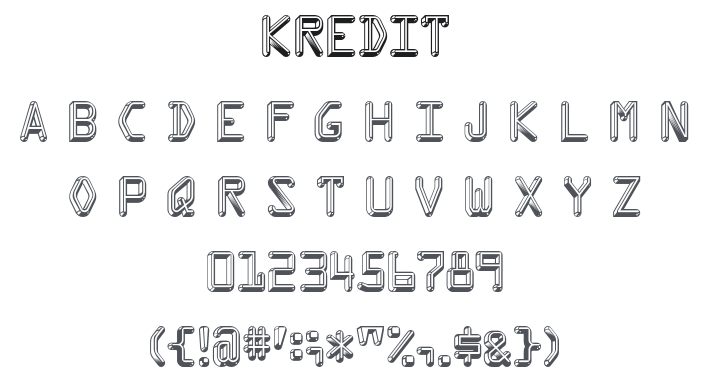
Kredit Font Family
About Kredit
Kredit is an OCR-A inspired credit card display typeface — its monospaced, machine-readable letterforms perfectly mimic the embossed numbers on a classic bank card, complete with a raised, dimensional quality. Four layerable files (regular, back, front, shine) allow convincing 3D card-embossing effects. Perfect for fintech branding, cyberpunk designs, heist-themed posters, retro tech aesthetics, and anything channeling the cold, authoritative language of financial systems.